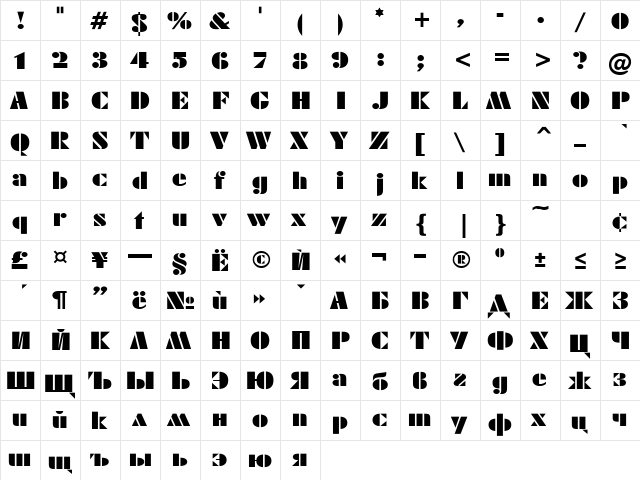
ShablonExt Normal
Design Context for ShablonExt Typeface
ShablonExt is a composed and adaptable typeface that performs quietly and consistently across a wide range of design contexts.